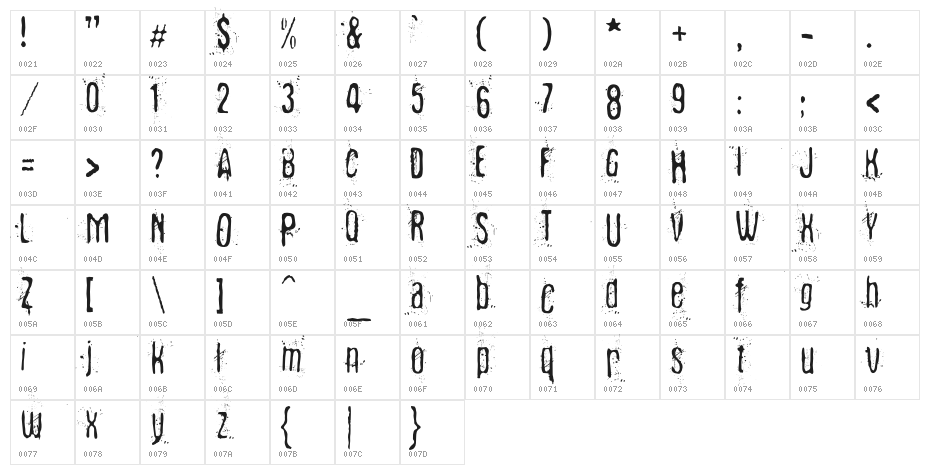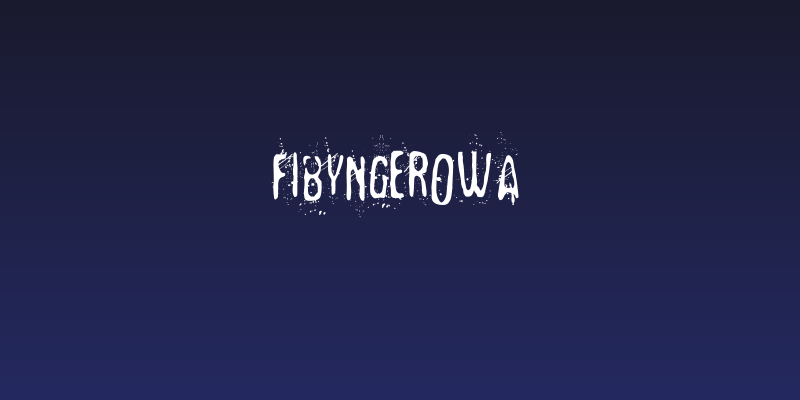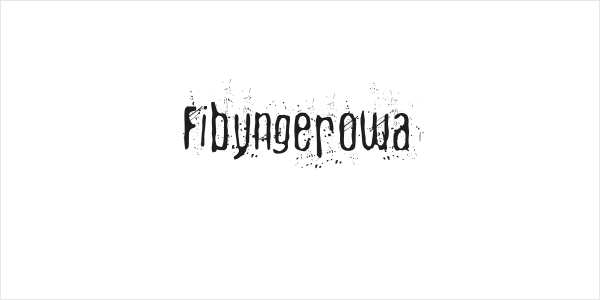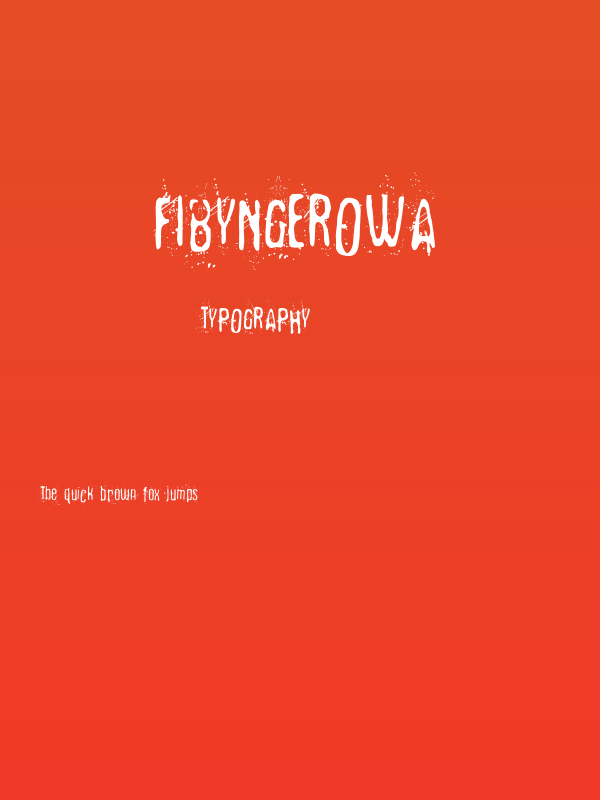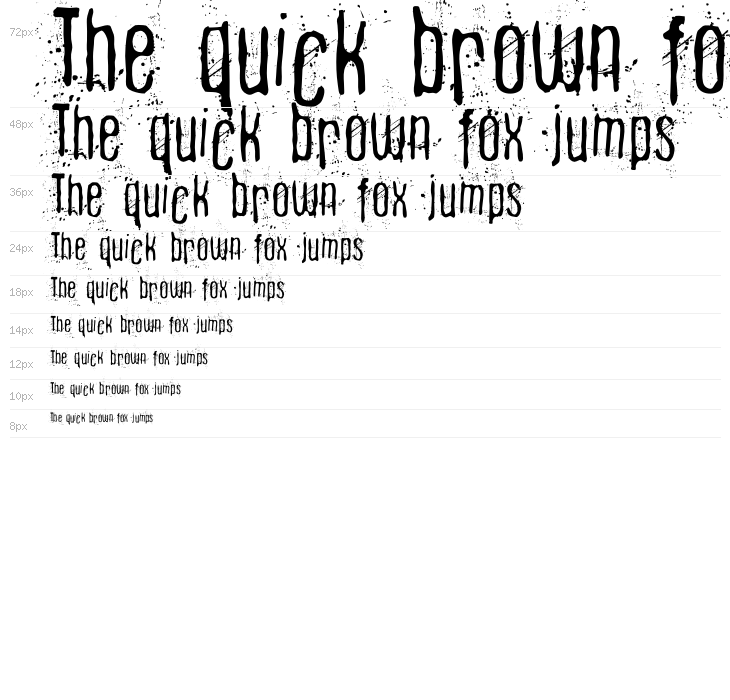
Fibyngerowa Font
Fibyngerowa Description
This font features a distressed, grunge style with irregular edges and a hand-drawn appearance. The characters are tall and narrow, giving an elongated look. The uppercase and lowercase letters maintain a consistent height, while the numbers and special characters follow the same distressed theme. The overall texture is rough, with splatters and uneven strokes that add to its unique, edgy aesthetic. This font is ideal for projects that require a bold, artistic statement, such as album covers, posters, or urban-themed designs.
| Overall Style | Grunge, Artistic |
| Proposed Projects | Album covers, posters, urban-themed designs, artistic statements. |